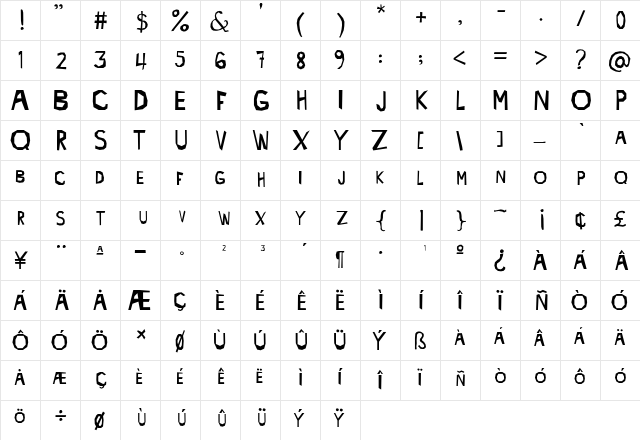
Malenka Regular
| Designer | Adriana Mazurek |
Design Context for Malenka Typeface
Malenka is a composed and adaptable typeface that performs quietly and consistently across a wide range of design contexts.